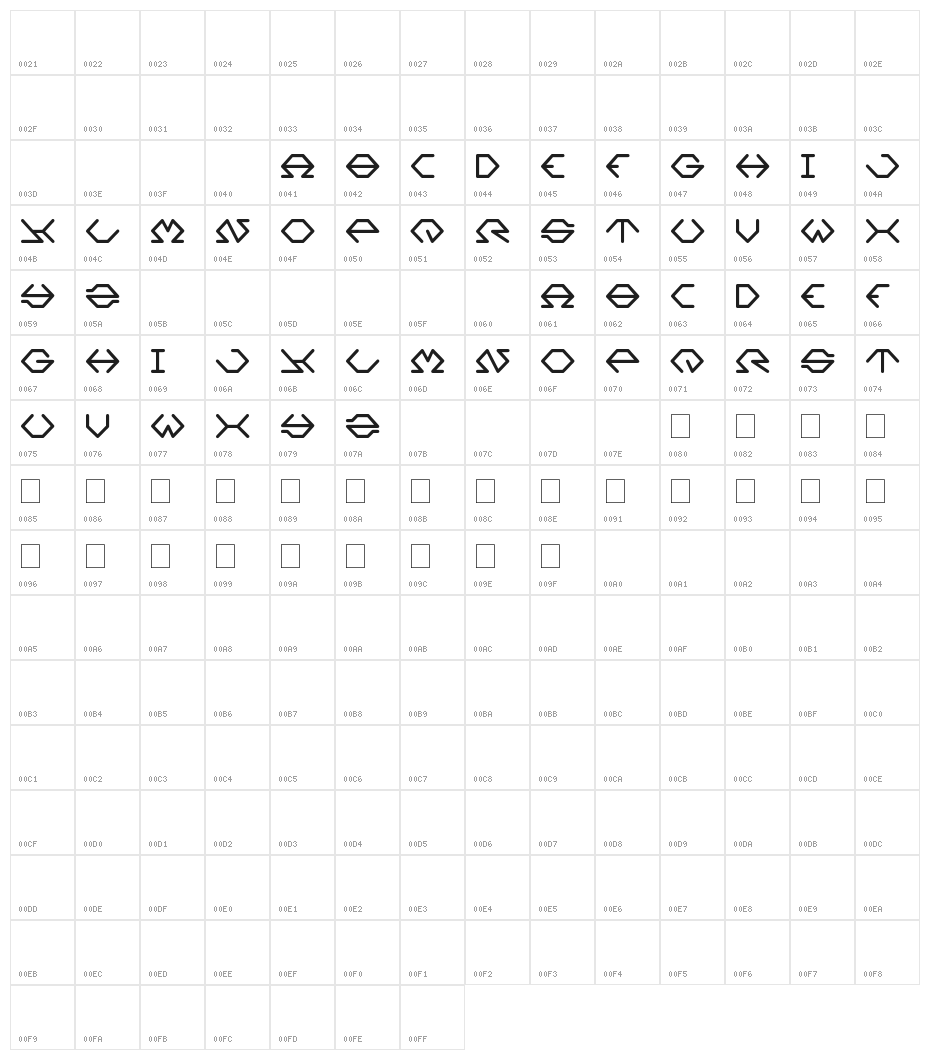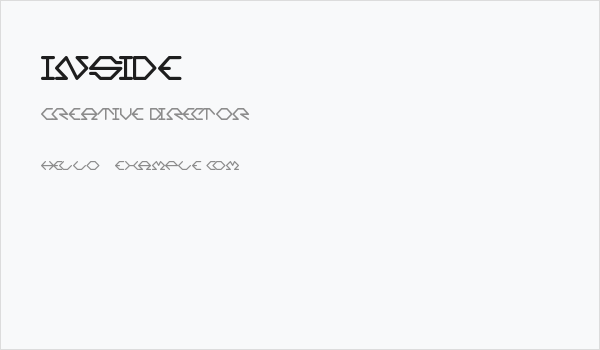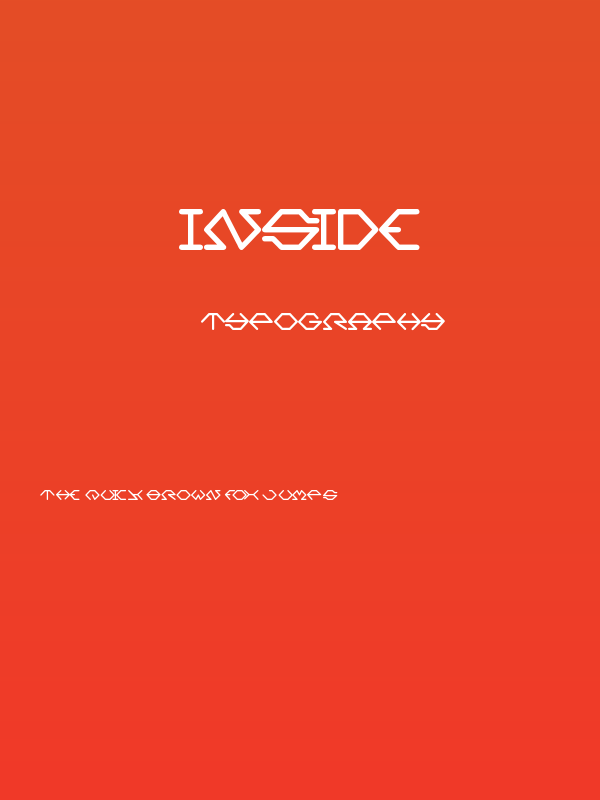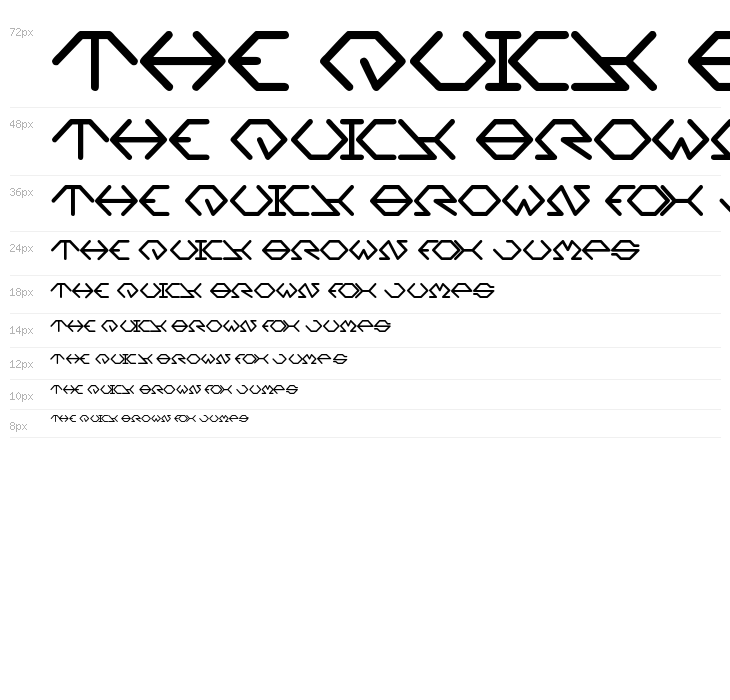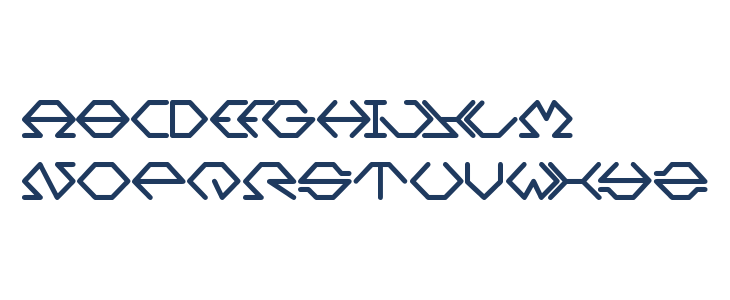
Inside Font
Inside Description
This font features a futuristic and geometric design, characterized by its angular and interconnected letterforms. The uppercase letters are bold and striking, with a consistent thickness throughout each character, giving it a strong presence. The design incorporates sharp edges and unique angles, creating a sense of movement and modernity. The lowercase letters maintain the same geometric style, ensuring consistency across the typeface. The numbers and special characters are designed to match the overall aesthetic, making this font suitable for projects that require a modern and tech-inspired look.
| Use Case | Logos, Headlines, Posters |
| Proposed Projects | Ideal for technology branding, sci-fi themed designs, video game titles, and modern posters. |